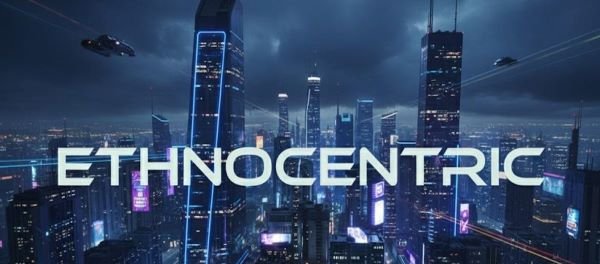
Ethnocentric Font
Ethnocentric Font by Typodermic Fonts is a futuristic display typeface whose sharp angles and sleek, precision-cut letterforms seem engineered rather than drawn. It carries the cold confidence of advanced technology and the visual grammar of science fiction without ever tipping into parody.
Game logos, film titles, sci-fi branding, and any project demanding a high-tech, cutting-edge aesthetic will find Ethnocentric an exceptionally capable and versatile choice. Completely free to use.
Style: Sci-fi, Futuristic, Display, Bold